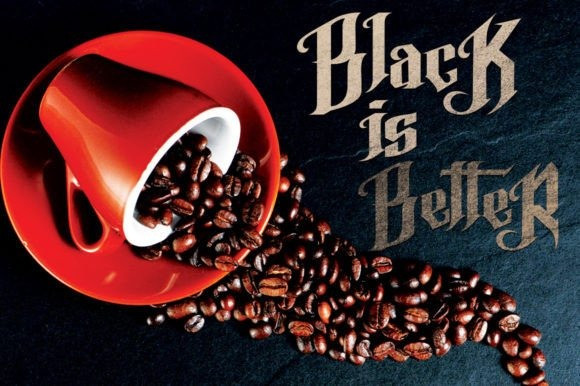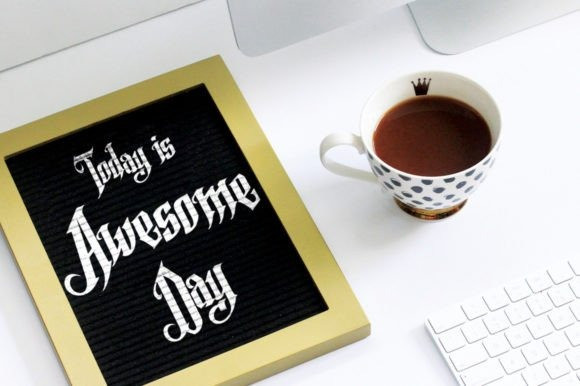
Simplicity Blackletter Font
Simplicity Blackletter Font is a simple and authentic blackletter font. It is suitable for creating any branding, product packaging, invitation, quote, t-shirt, label, poster, or logo that you wish to develop. It has strong characters which can be used to make your design stand out.